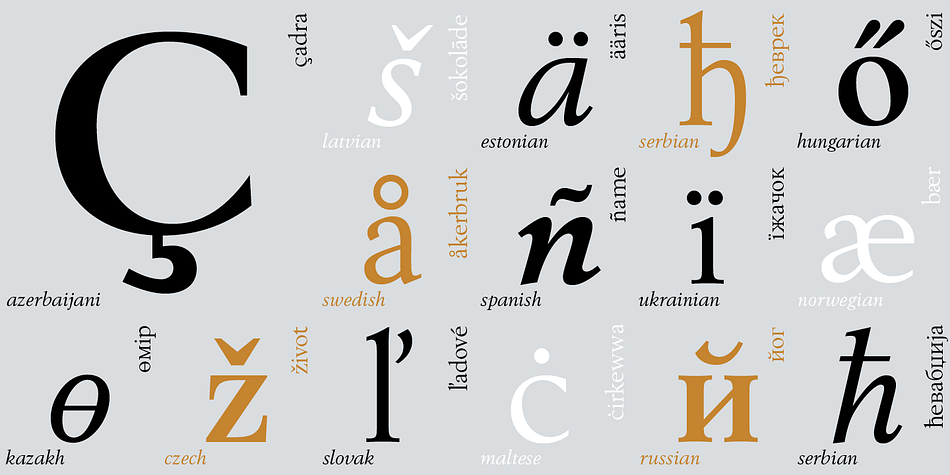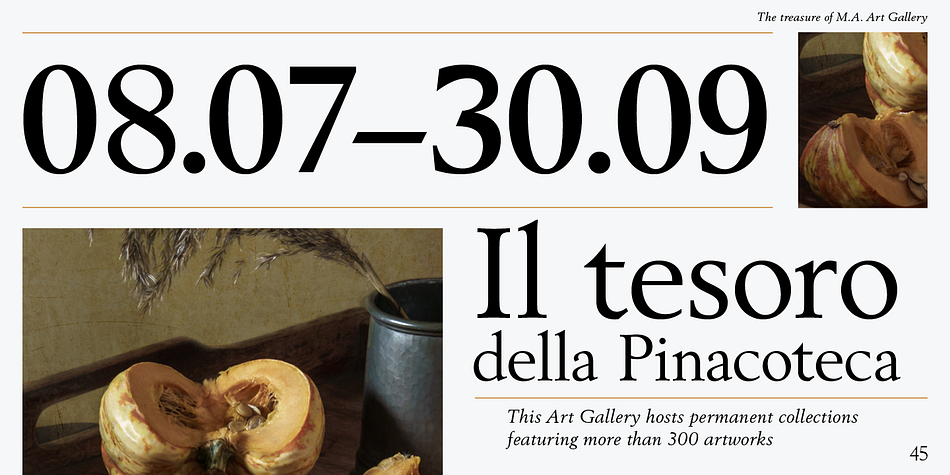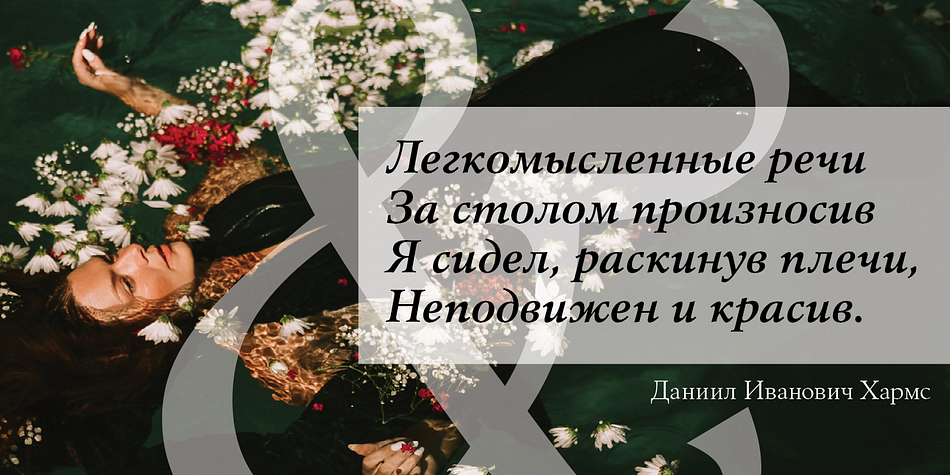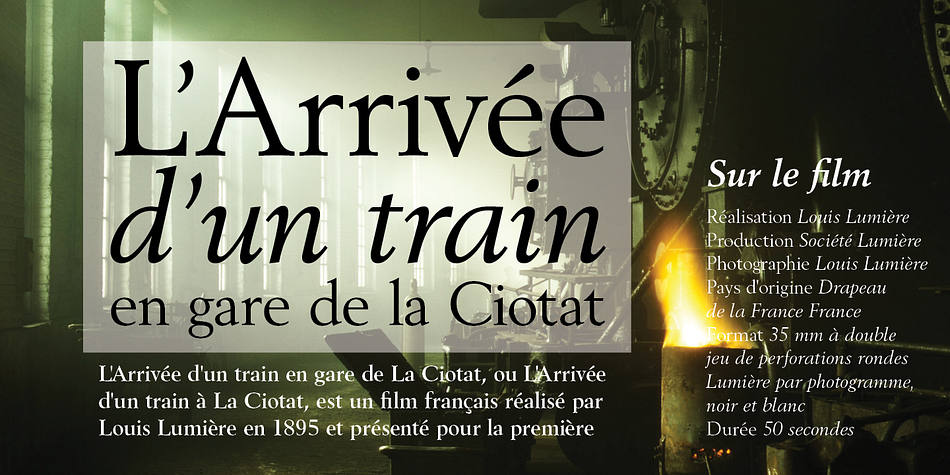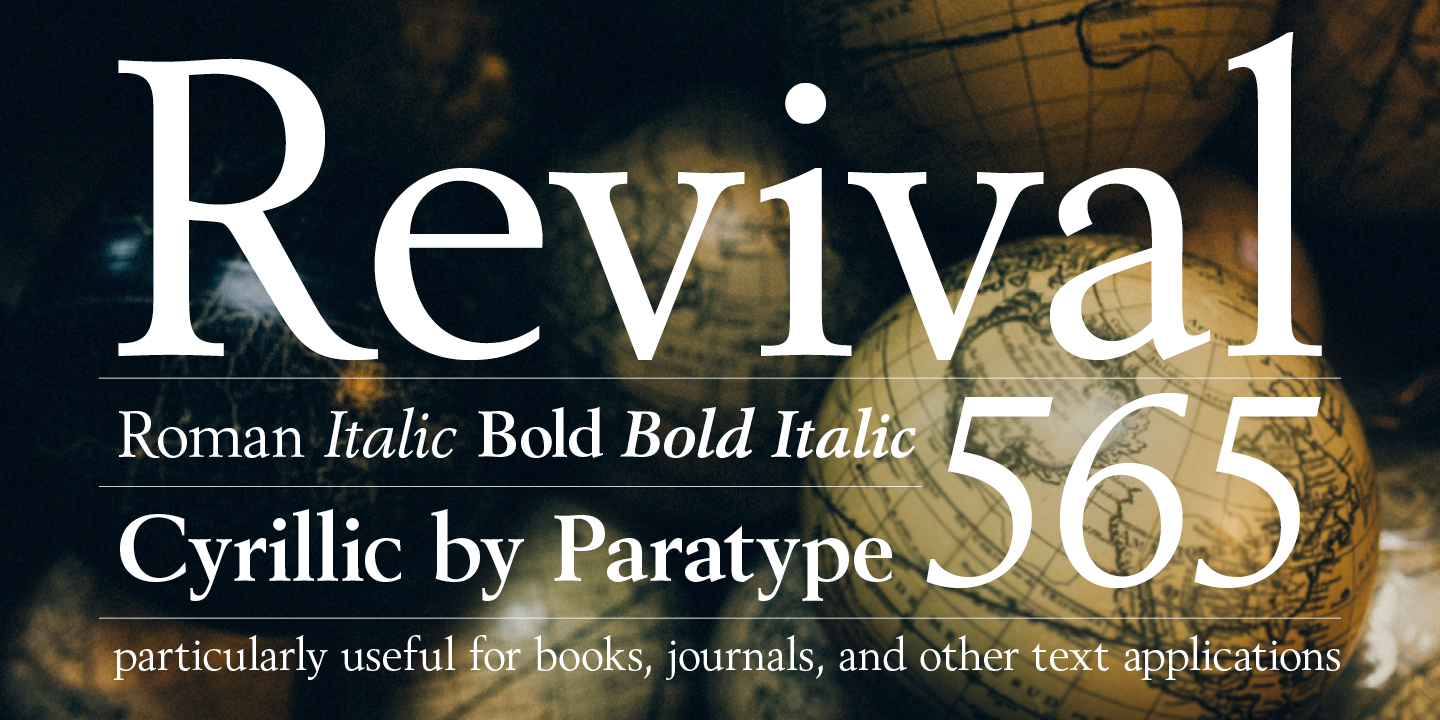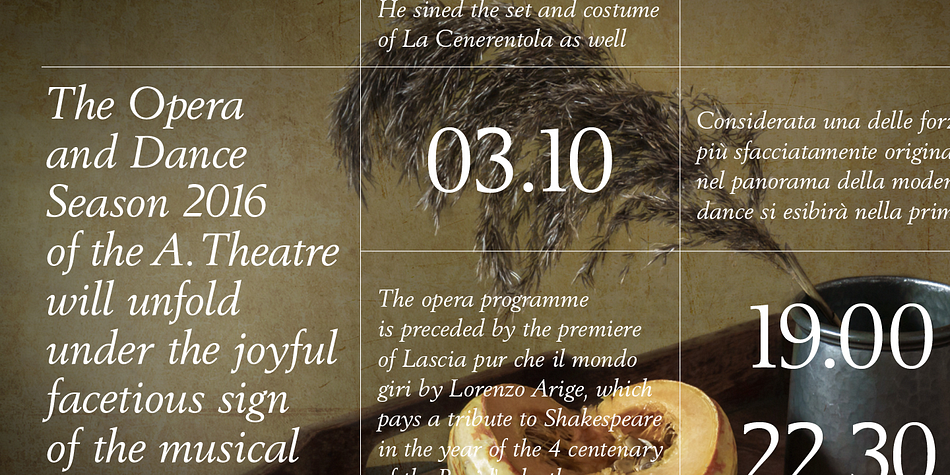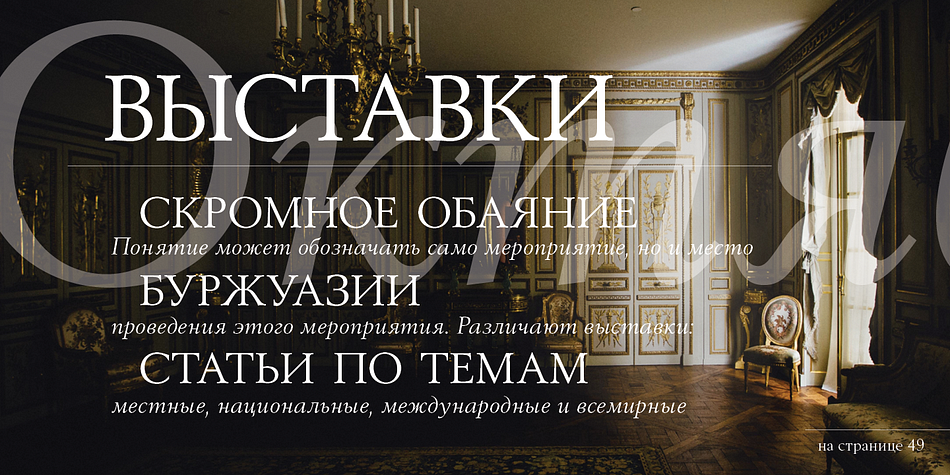
Revival 565 BT
Designed by Manvel Shmavonyan, Revival 565 BT is a serif font family. This typeface has four styles and was published by ParaType.
Revival 565 is the Bitstream version of type Berling. The face was created by Karl-Erik Forsberg for the Swedish Berling foundry in 1951, with other weights added in 1958. The design is an old style roman, particularly useful for books, journals, and other text applications. Despite the fact that it has higher contrast than most old style typefaces, Berling has the classic features of old style romans with its small x-height, and ascenders that exceed the height of the capital letters. Berling is good for text settings as well as display work. Cyrillic version was developed for ParaType by Manvel Shmavonyan in 2008.